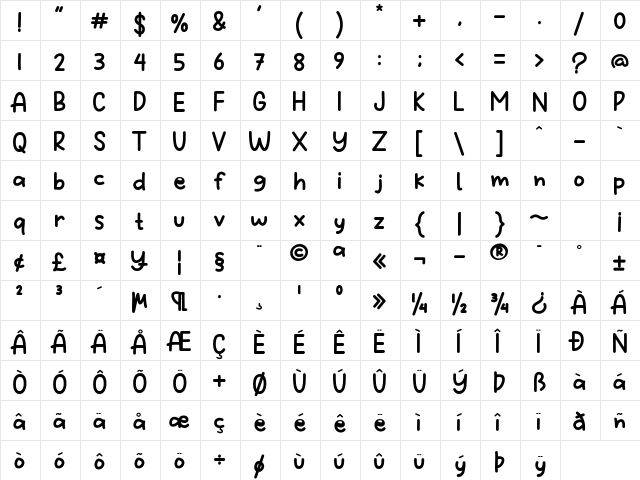
Gentle Remind Regular
Design Context for Gentle Remind Typeface
Gentle Remind is a composed and adaptable typeface that performs quietly and consistently across a wide range of design contexts.